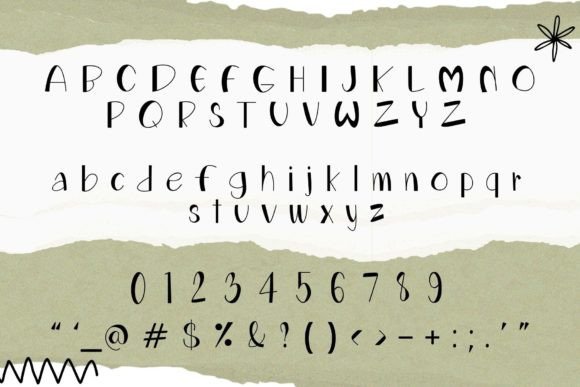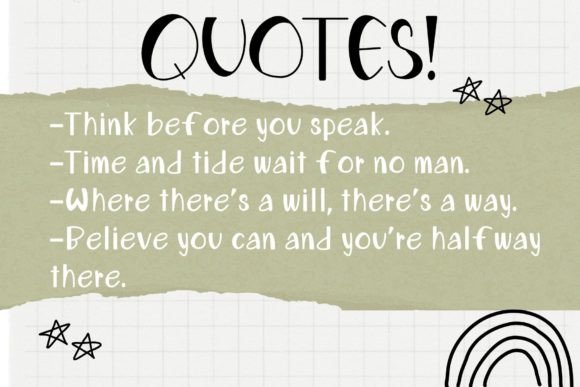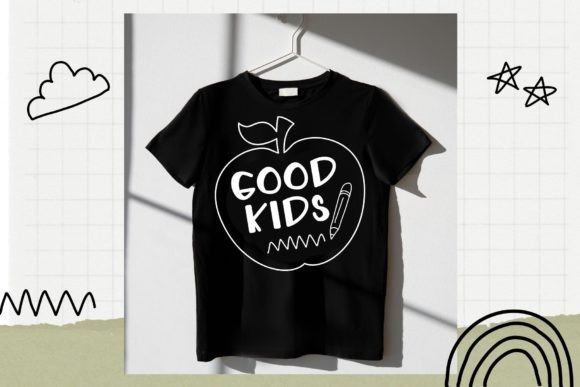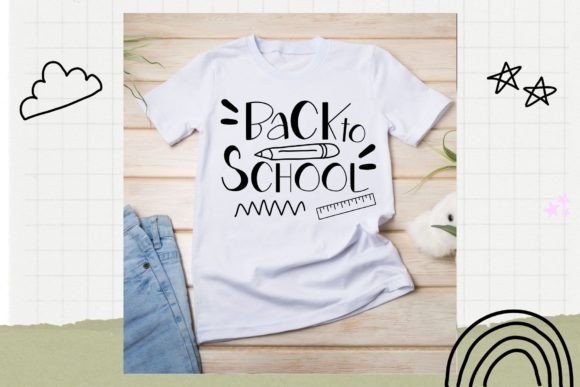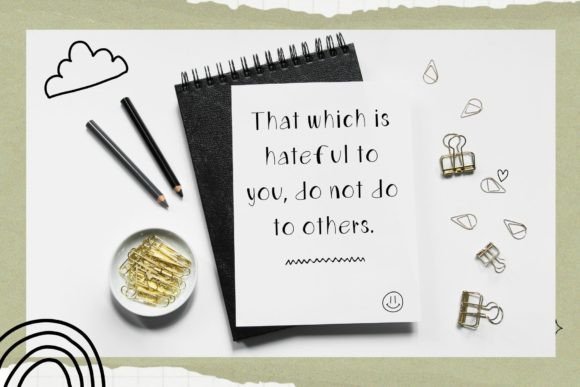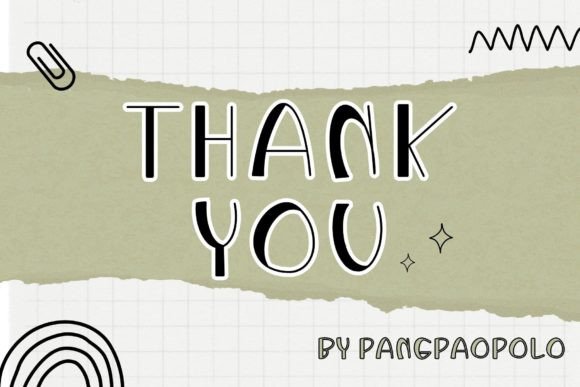
The Perfect Font for Bringing Your Designs to Life
Do you remember the feeling of creating something with your own hands, something that brings a smile to your face and a spark to your imagination? For many of us, it’s the moment we pick up a paintbrush, a pencil, or a design tool that we feel truly alive. And it’s in these moments that we’re reminded of the power of creativity and the importance of having the right tools to bring our ideas to life.
For designers, finding the perfect font can be just as magical. That’s why we’re excited to introduce you to the Good Kids Font, a lovely and timeless handwritten font that’s perfect for creating eye-catching logos, branding, and quotes. With its unique and beautiful touch, the Good Kids Font is sure to make your designs come alive and leave a lasting impression on your audience.
Good Kids Font Key Features
- Font Family: Good Kids Font is a unique, hand-drawn font designed specifically for children’s content, making it perfect for educational materials, children’s books, and family-friendly brands.
- Unique Characteristics: The font features playful, rounded edges, and whimsical details, creating a friendly and approachable atmosphere, ideal for engaging children and families.
Good Kids Font Review
As a designer, I was excited to try out the Good Kids Font, hoping it would be a fun and playful addition to my designs. Overall, I was pleasantly surprised by its charm.
- The font is highly customizable, allowing me to adjust the size, color, and spacing to suit my needs.
- The rounded edges and soft lines give it a friendly, approachable feel that’s perfect for kid-friendly content.
- The font is highly legible, making it easy to read even at small font sizes.
- The font may not be the best choice for formal or professional content, as it can come across as too playful or childish.
- The font is not as versatile as some other fonts, and may not be suitable for complex or technical content.
Overall, I think the Good Kids Font is a great choice for designers looking to add a touch of whimsy and fun to their designs. While it may have some limitations, it’s a solid choice for kid-friendly content and is sure to bring a smile to users’ faces.
Getting the Most Out of Good Kids Font
To get the most out of Good Kids Font, consider the following tips:
- Use Good Kids Font for headings and titles to add a playful touch.
- Combine Good Kids Font with other fonts to create a unique and eye-catching design.
- Experiment with different font sizes and colors to find the perfect balance.
Good Kids Font is perfect for:
- Children’s book covers and illustrations.
- Playful branding and marketing materials.
- Whimsical website designs and graphics.
Alternatives to Good Kids Font
Great Vibes Font is a modern, elegant script font. It is suitable for use in various designs, such as wedding invitations, greeting cards, and logos. This font is more polished and refined compared to Good Kids Font, which is more playful and childlike.
Use Great Vibes Font when you need a sophisticated and elegant look for your design.
Pacifico Font is a beautiful, handwritten script font with a relaxed, beachy feel. It is ideal for use in designs that require a casual, laid-back atmosphere, such as food menus, travel brochures, and lifestyle magazines.
Pacifico Font is more casual and laid-back compared to Good Kids Font, which is more playful and energetic.
Dancing Script Font is a dynamic, elegant script font that is perfect for use in designs that require a sense of movement and energy, such as posters, flyers, and social media graphics.
Dancing Script Font is more dynamic and energetic compared to Good Kids Font, which is more playful but not as dramatic.
Lobster Font is a fun, casual script font that is suitable for use in designs that require a lighthearted and playful atmosphere, such as food labels, product packaging, and children’s products.